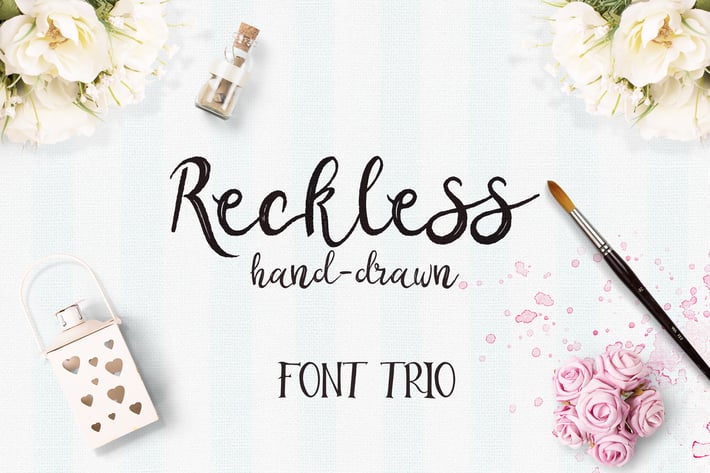
Reckless Font Trio
Package includes 3 handwritten font: Reckless Script handwritten brush with with ragged edges, Reckless Regular written by a brush with the shabby effect. Reckless HandDrawn it is sloppy outlines, which are suitable for posters and funny cards. Reckless Regular includes Latin Extended